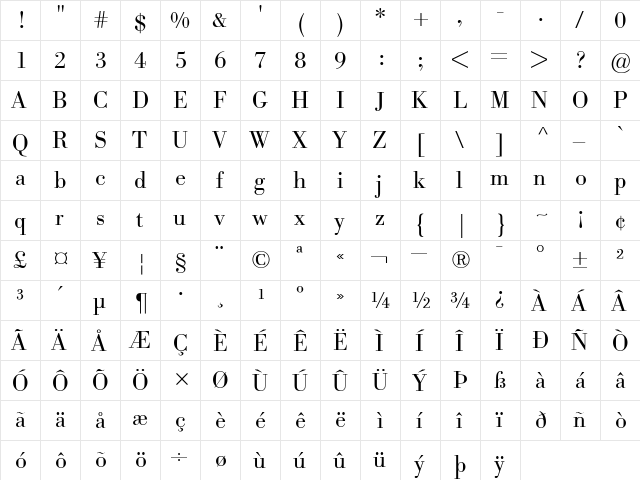
BodoniBE-Light Light
Design Context for BodoniBE-Light Typeface
BodoniBE-Light is a composed and adaptable typeface that performs quietly and consistently across a wide range of design contexts. The delicate stroke weight brings airiness and refinement to layouts.